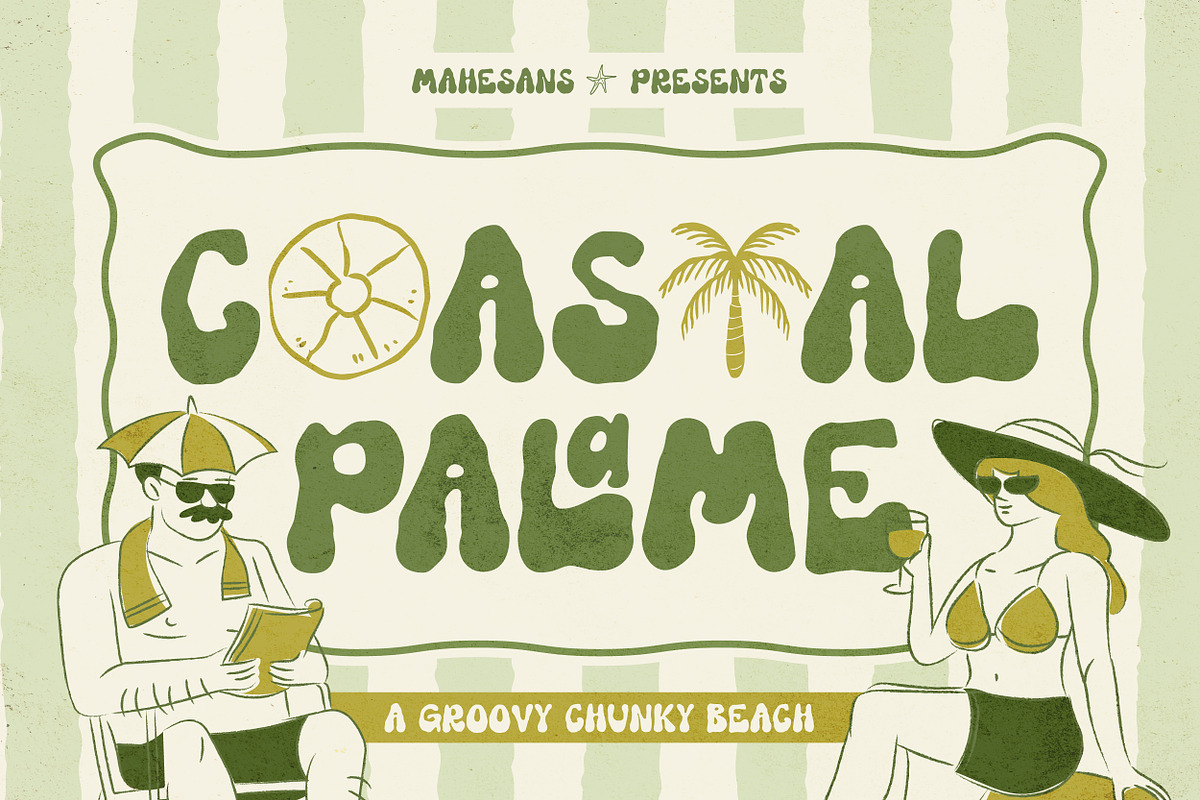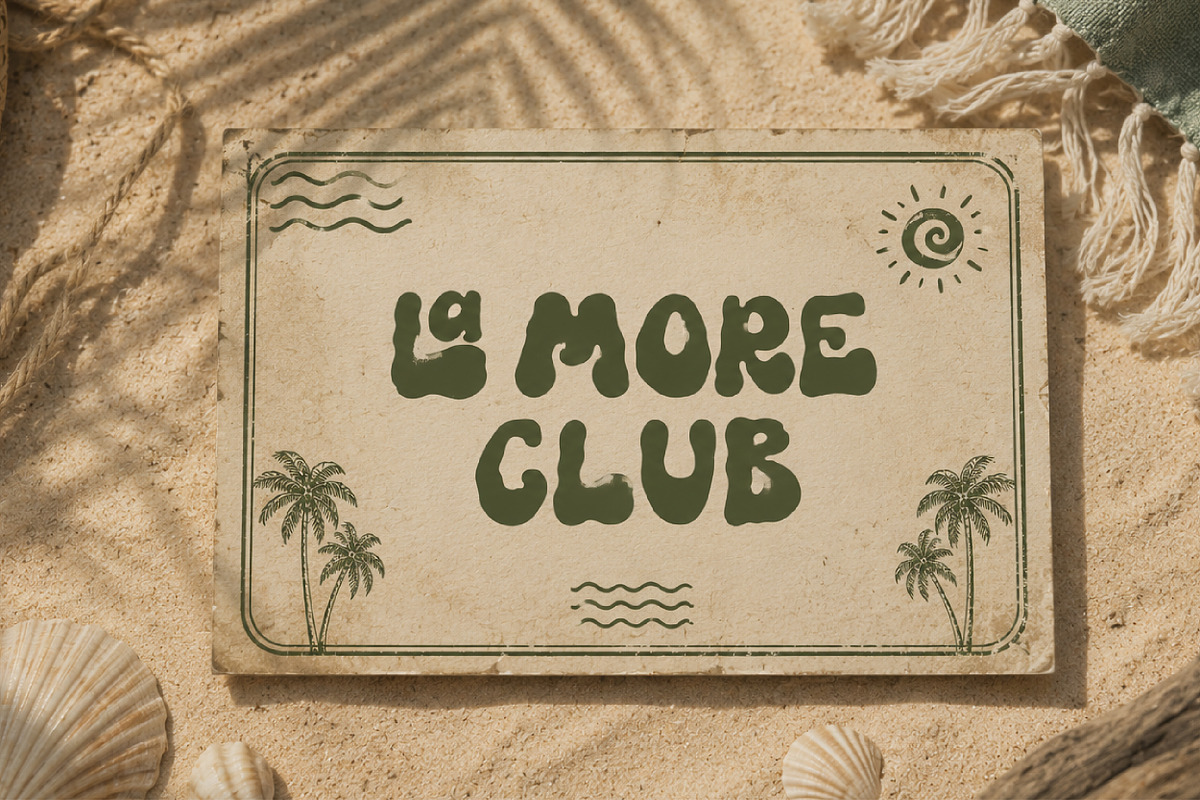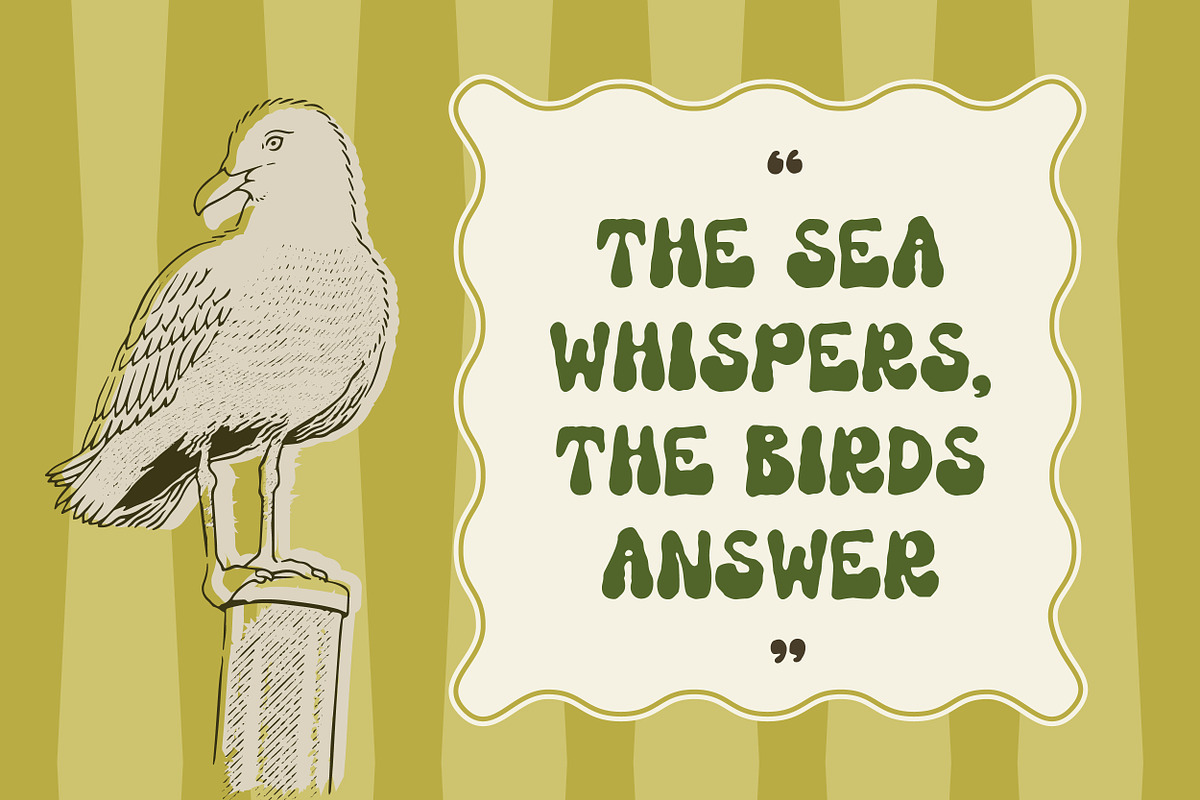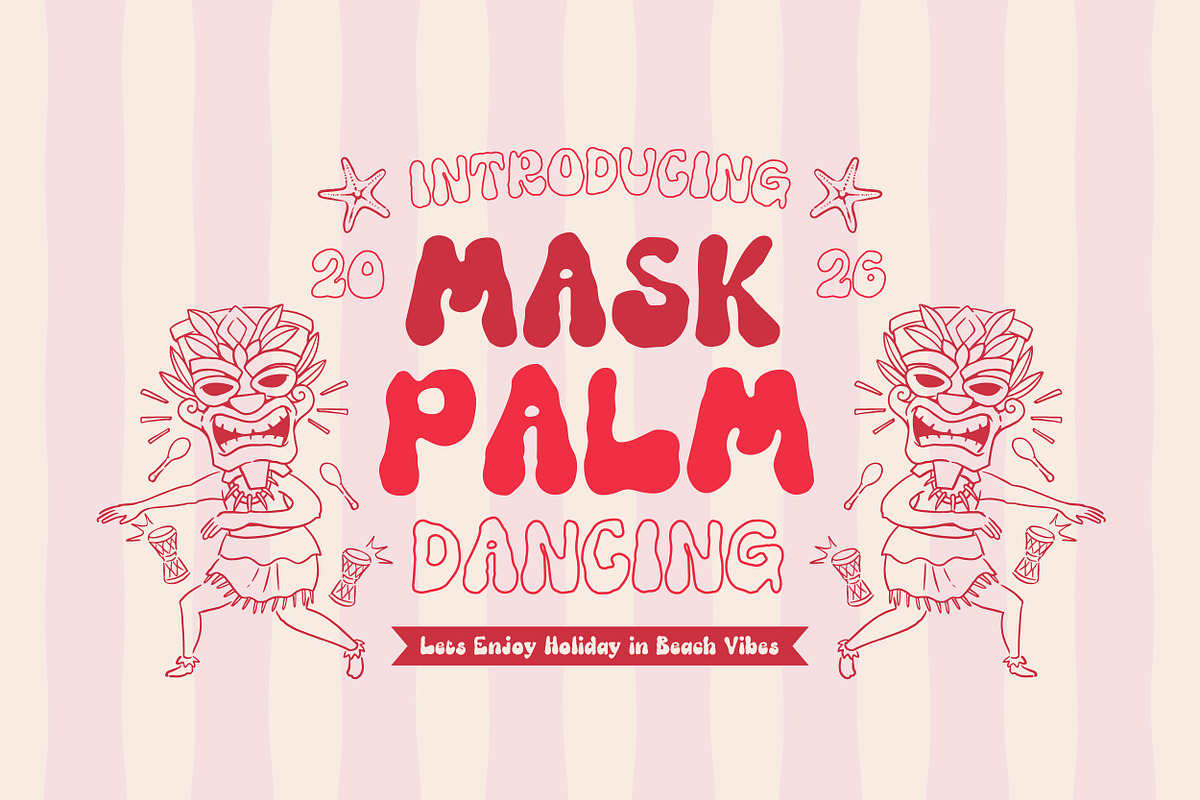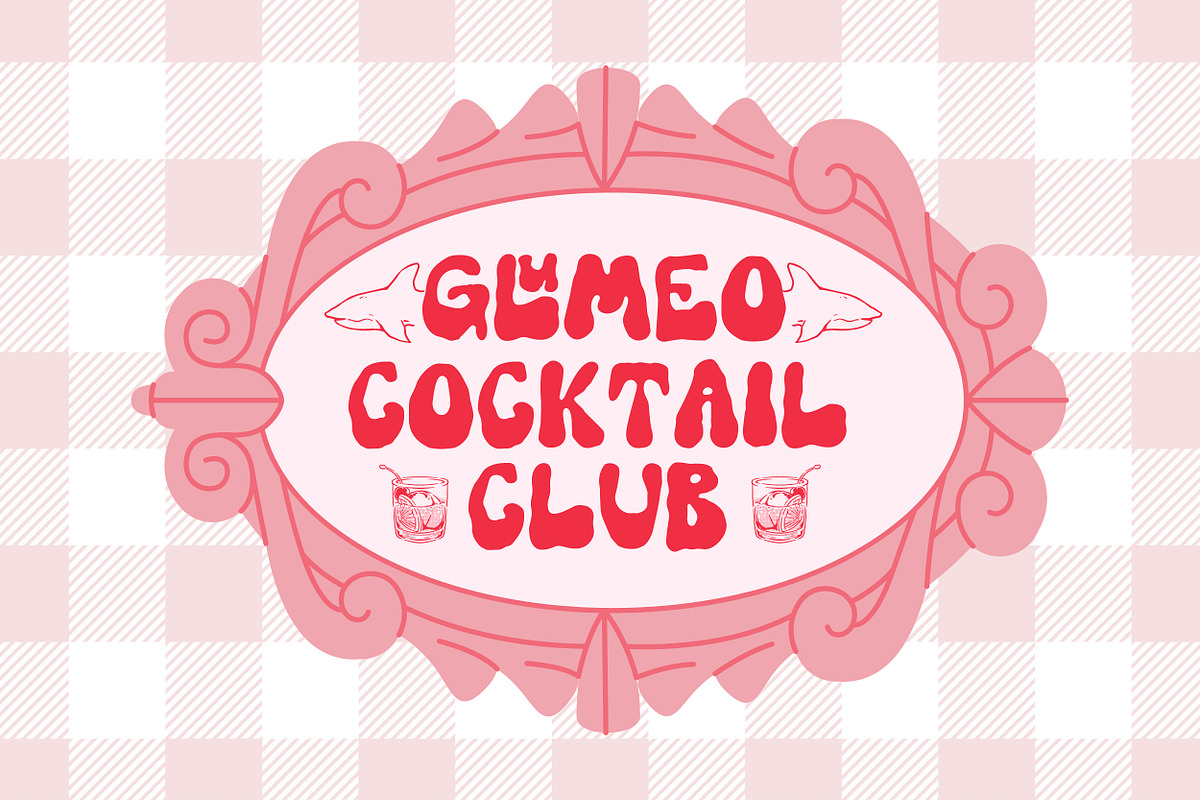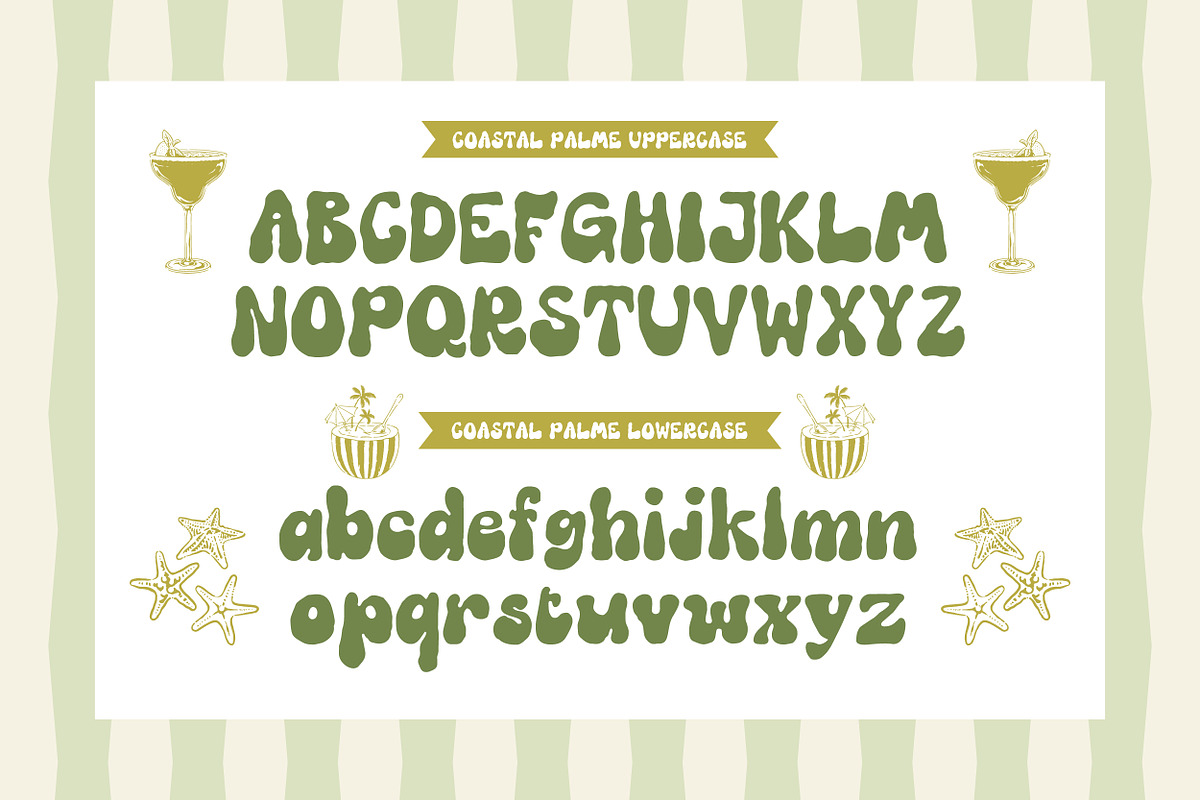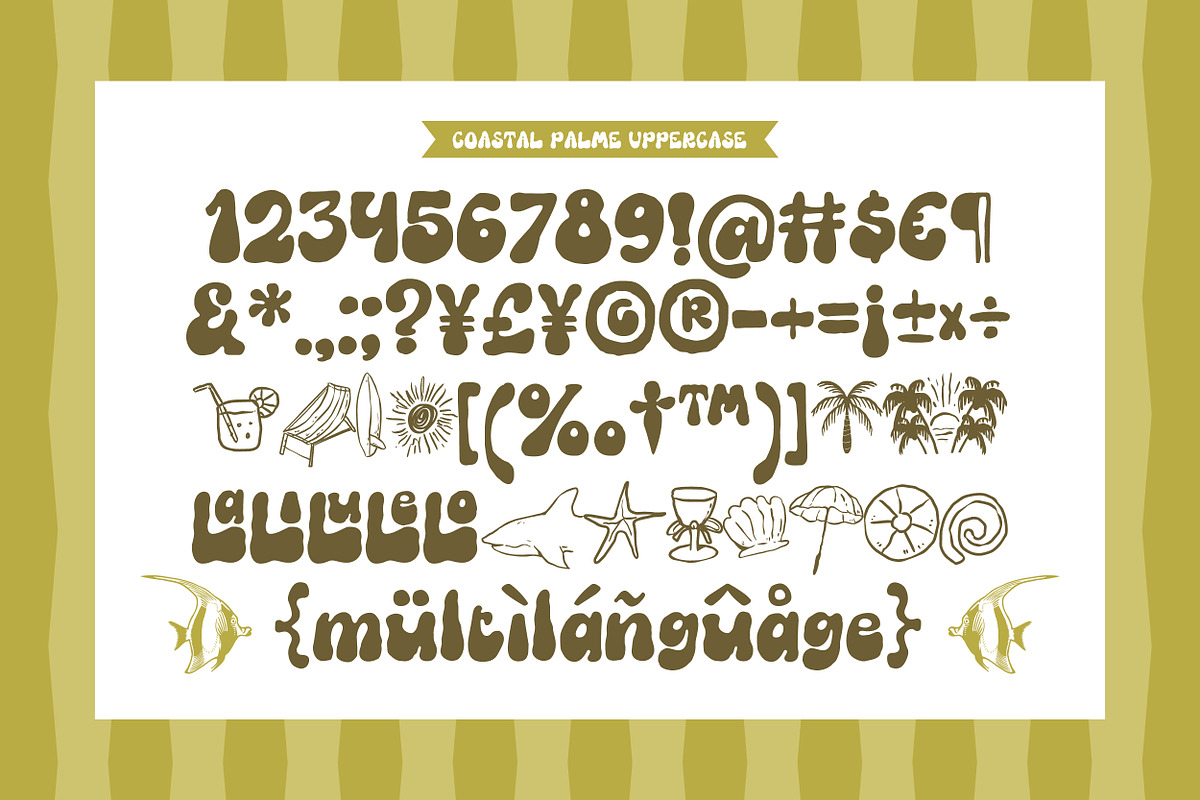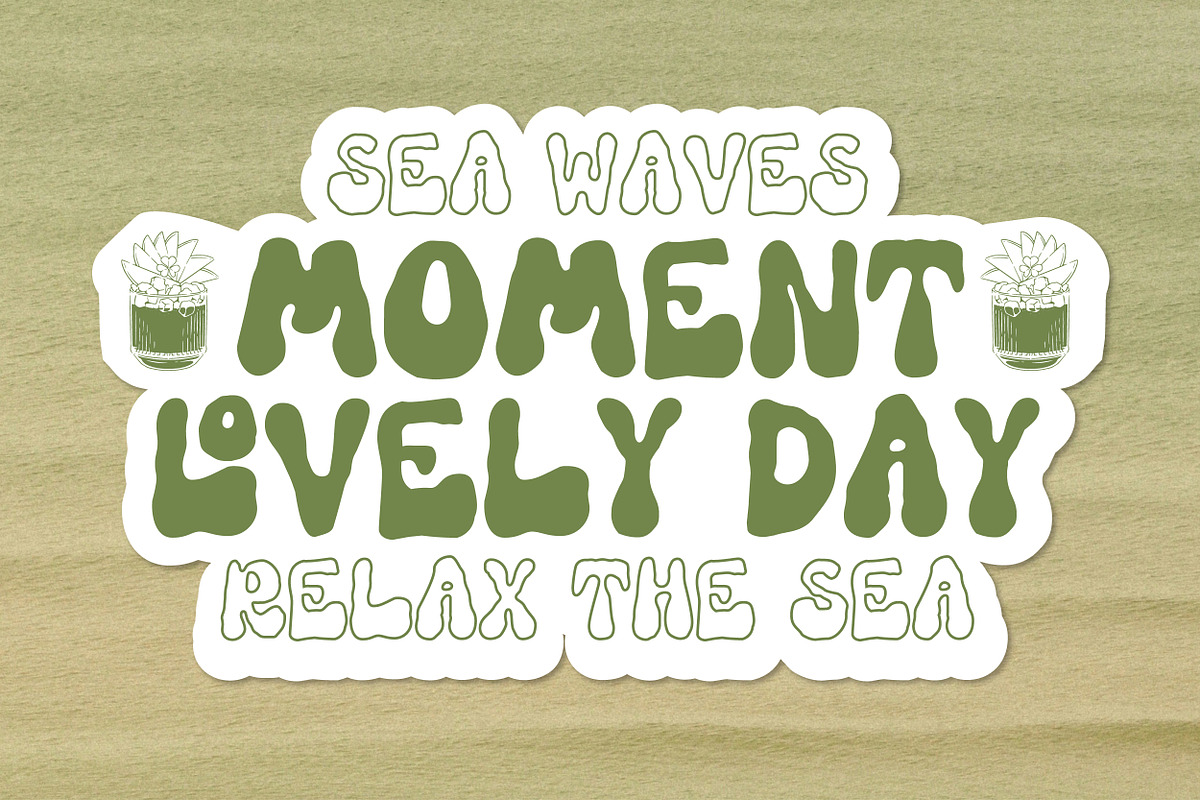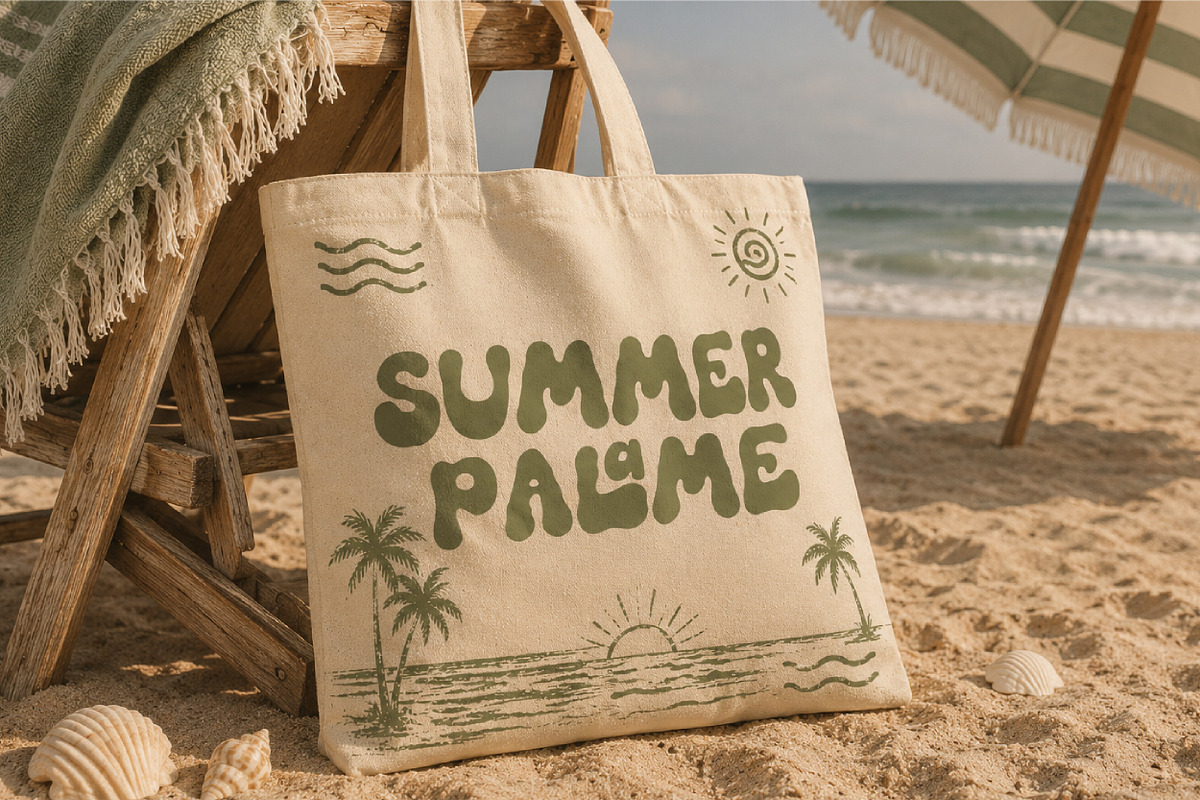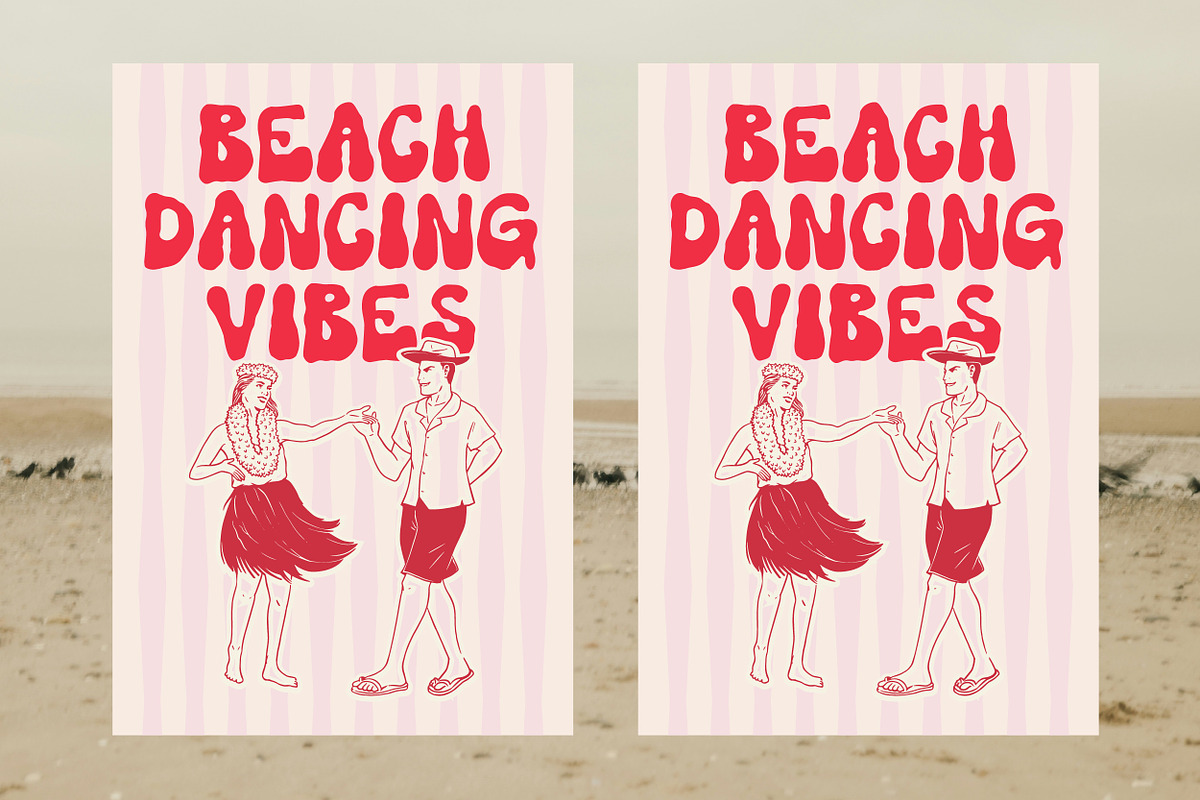
Coastal Palame - Summer Handwritten
Coastal Palm is a groovy chunky display font inspired by sunny beaches, tropical holidays, retro surf culture, and carefree summer vibes. With its bold, organic shapes and playful hand-drawn character, this typeface instantly adds a fun and nostalgic personality to any design.
Its chunky letterforms make it perfect for eye-catching headlines, while the quirky and slightly wobbly shapes bring a handmade feel that works beautifully with vintage and contemporary aesthetics.
Coastal Palm is perfect for:
Beach & summer branding
Surf shop designs
Tropical posters
Vacation & holiday graphics
T-shirt designs
Beach party invitations
Travel branding
Kids & playful designs
Stickers & merchandise
Packaging & labels
Posters, signage & editorial headlines
Multilanguage
Whether you're creating a summer collection, beachwear brand, tropical campaign, vacation poster, or retro-inspired merchandise, Coastal Palm is made to bring that laid-back holiday energy straight into your typography.